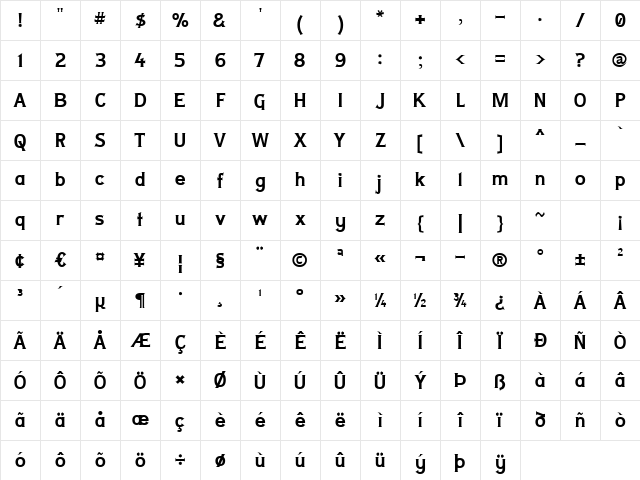
Lady Copra Alternate Regular
Designer: Graham Meade
Design Context for Lady Copra Alternate
Lady Copra Alternate is a composed and adaptable typeface that performs quietly and consistently across a wide range of design contexts.